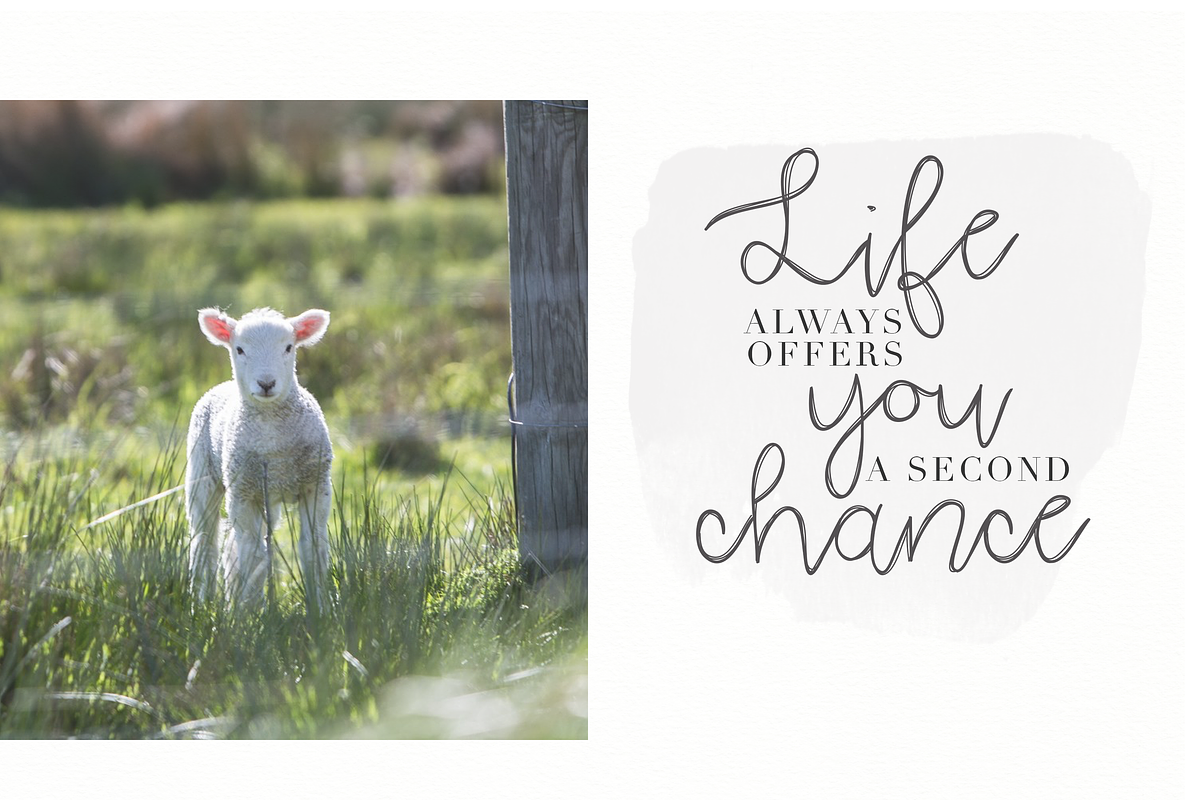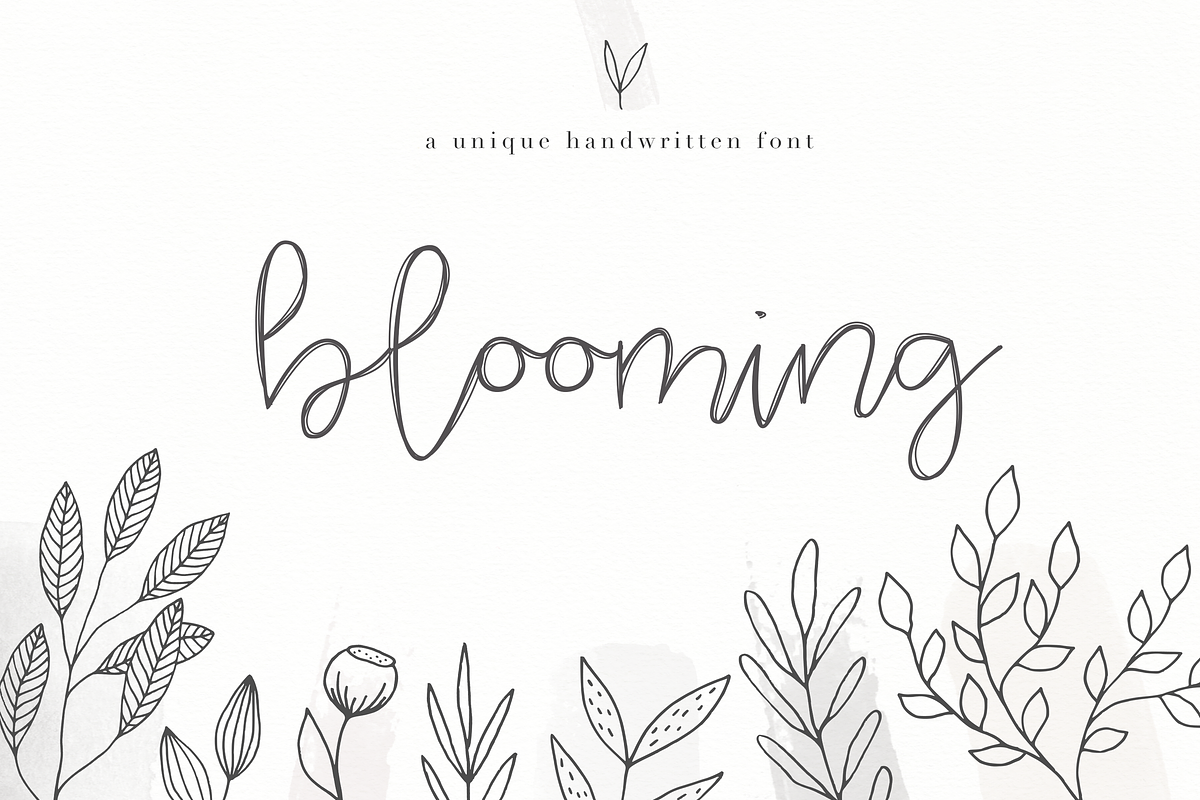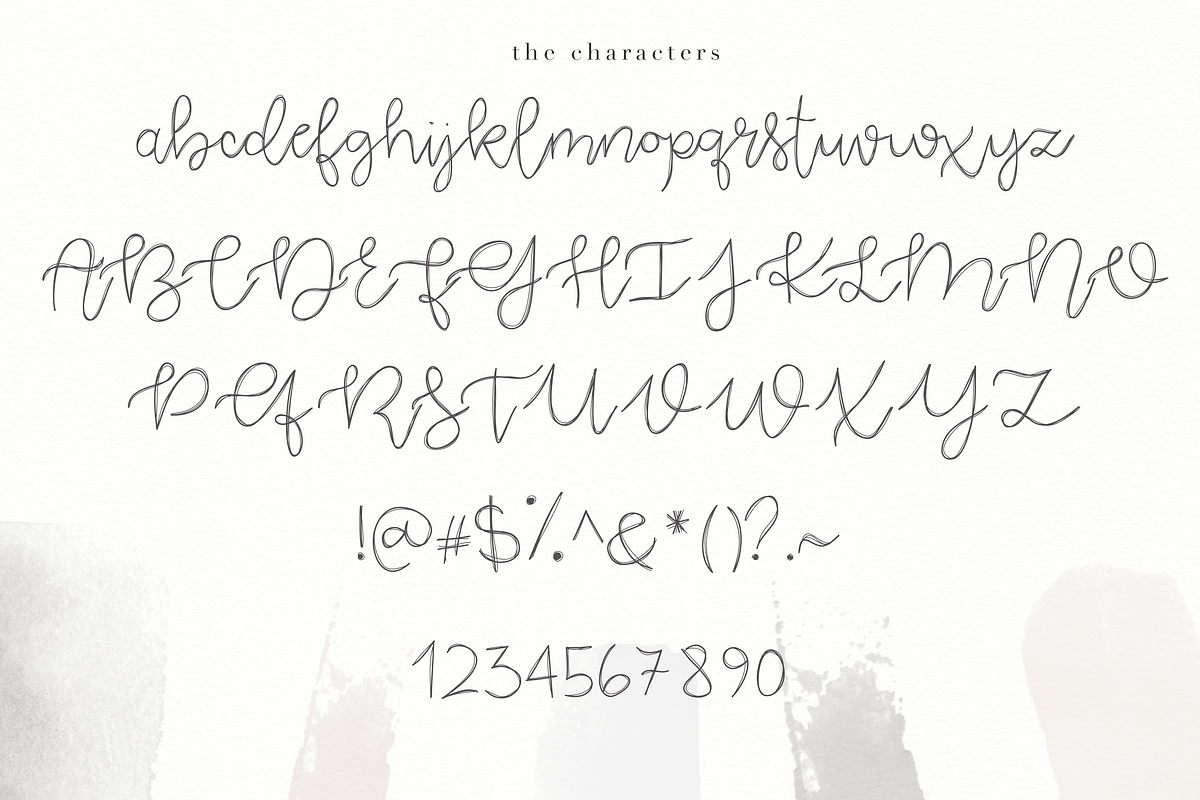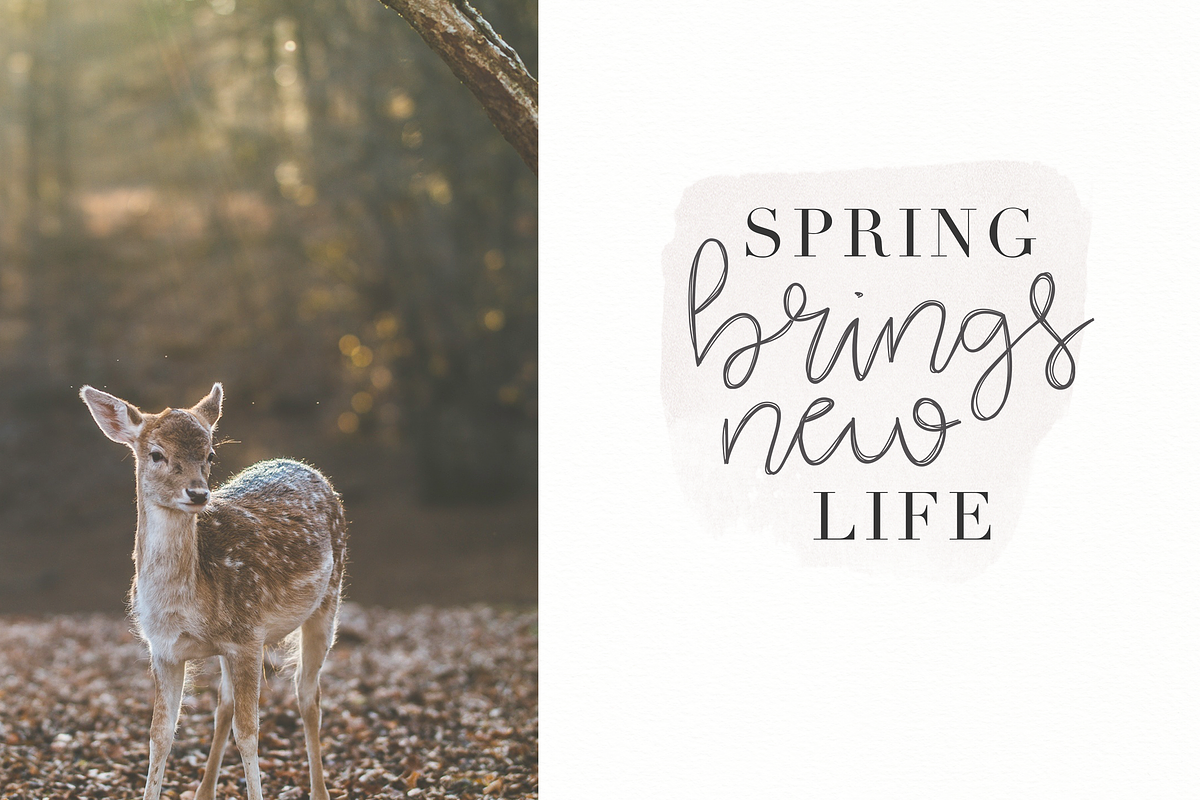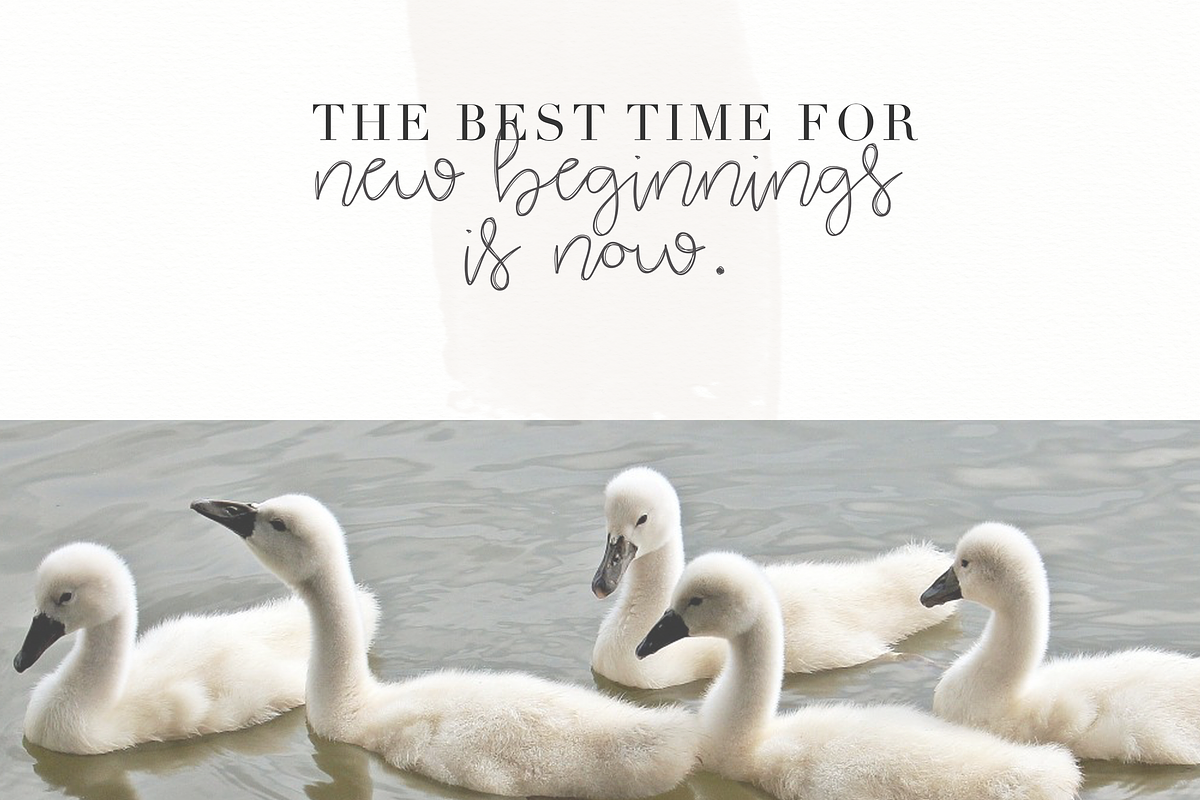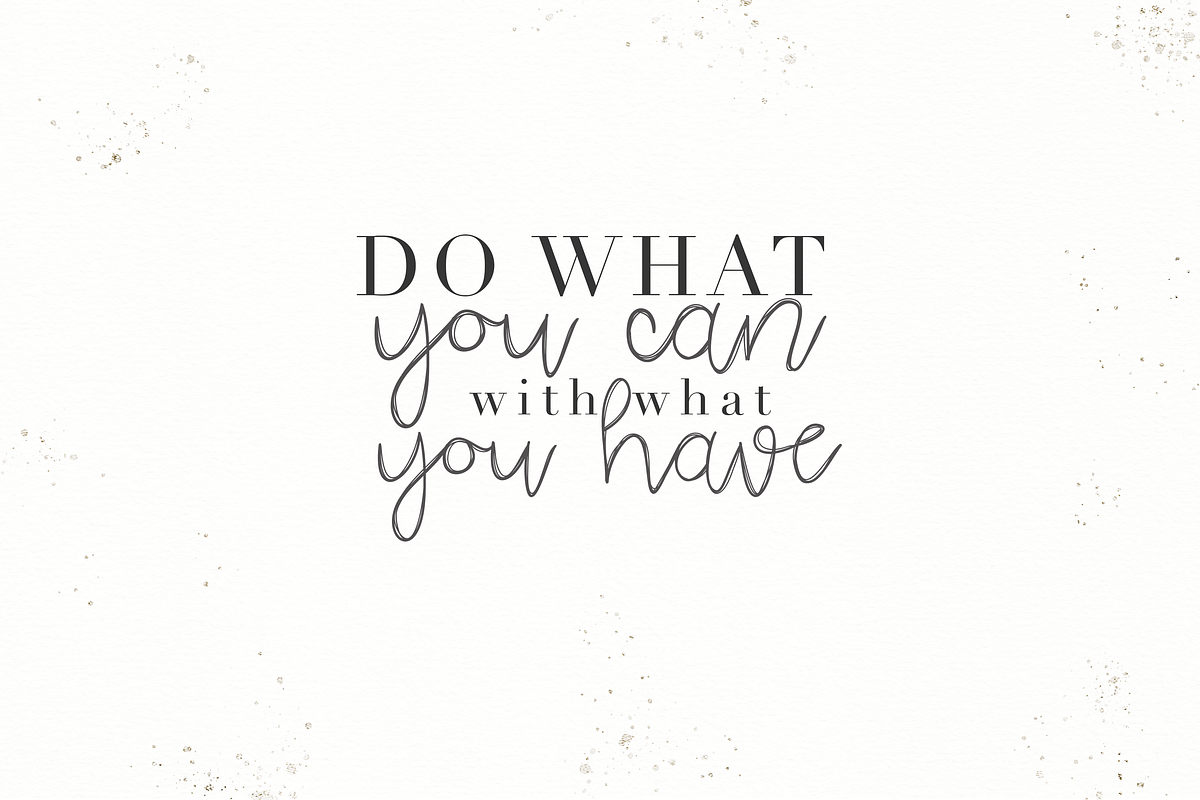
Blooming - Handwritten Font
Blooming is a unique handwritten font. This font is perfect for quotes, headings, blogs, logos, invitations and more!
This font does not include accent characters.